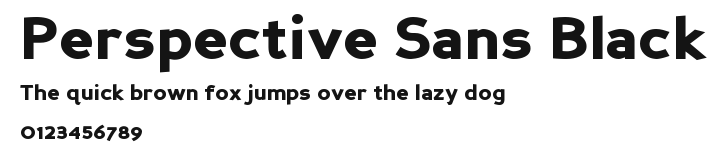
Perspective Sans Black Preview
About Perspective Sans Black.ttf
Perspective Sans Black.ttf is a modern, elegant sans-serif font designed for ultimate readability and visual harmony. Perfect for branding, headlines, web design, and print materials.